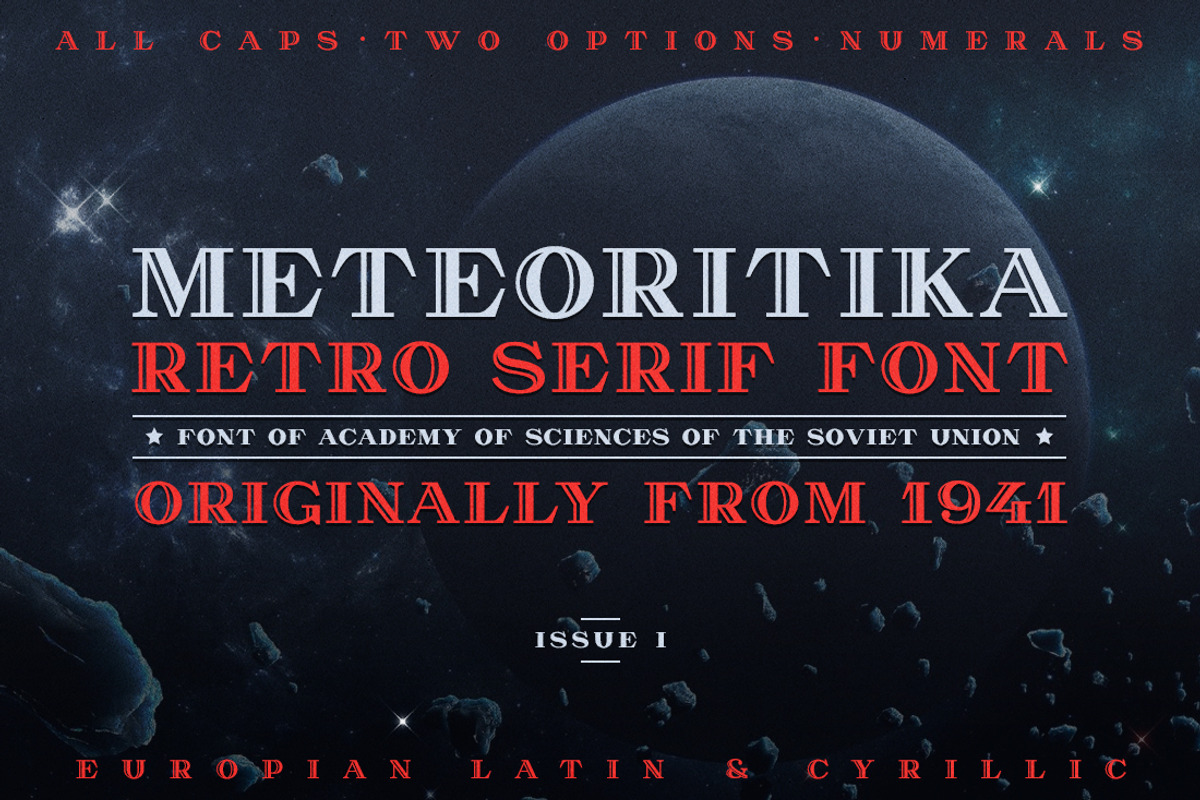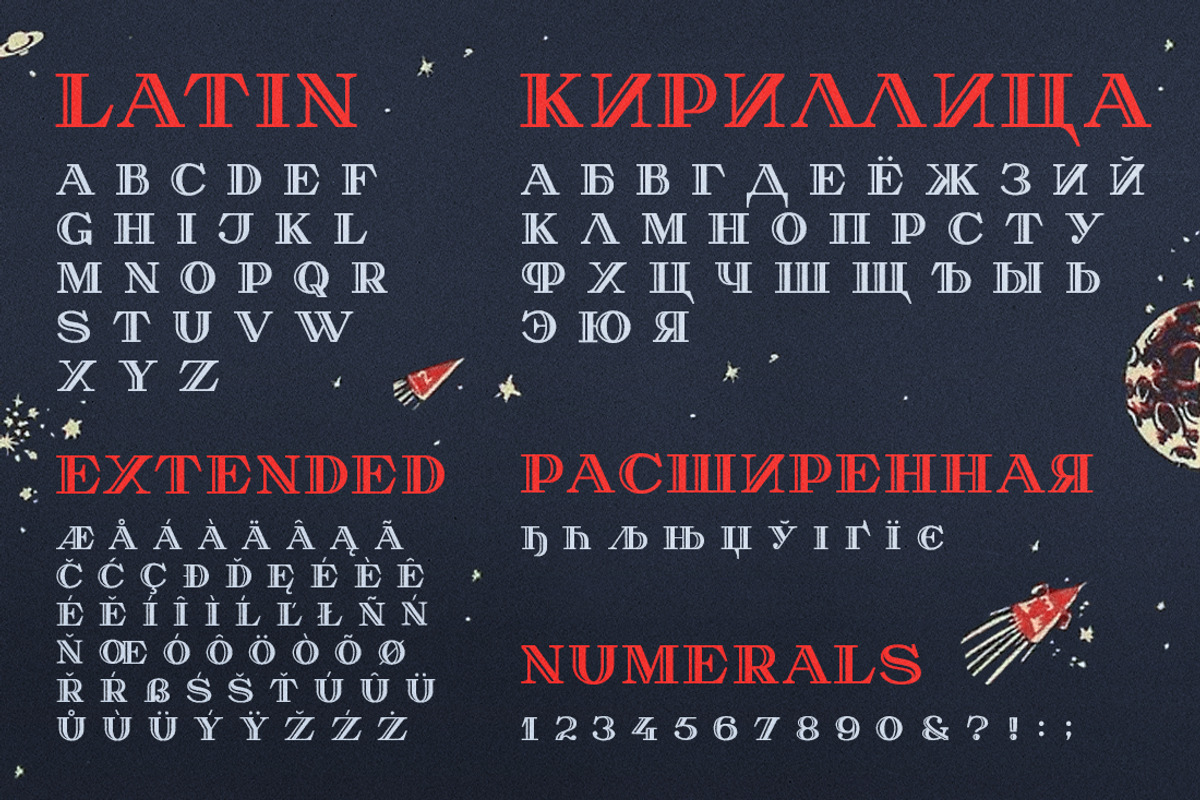
METEORITIKA Retro science font
Introducing a retro serif font called "METEORITIKA" (Meteoritica). This font is a digital replica of the title font of the publishing house of the Soviet Academy of Sciences from 1941. It's reconstructed from the world's first periodical magazine “Meteoritika” devoted to meteorites and their research under the editorship of Academician V.I. Vernadsky.
It's a headind font that bring back to the Space Race era, the era of the triumph of romance in science. The letterforms are bold and come in 2 styles: uppercase (shadowed) and small caps alternatives. It has Extended Eastern Europe LATIN and Extended Eastern Europe CYRILLIC letters. "METEORITIKA" created for movie titles, poster design, web design, branding and packaging works, illustrations, badges and other typography works.
METEORITIKA supports main europian languages with extended latin and cyrillic letters, such as English, Russian, French, German, Spanish, Polish, Belarusian, Bosnian, Bulgarian, Croatian, Czech, Macedonian, Swedish, Serbian, Slovenian, Ukrainian and probably others )
- The letterforms are bold and come in 2 styles: uppercase (shadowed) and small caps alternatives.
- METEORITIKA supports main europian languages with extended latin and cyrillic letters, such as English, Russian, French, German, Spanish, Po